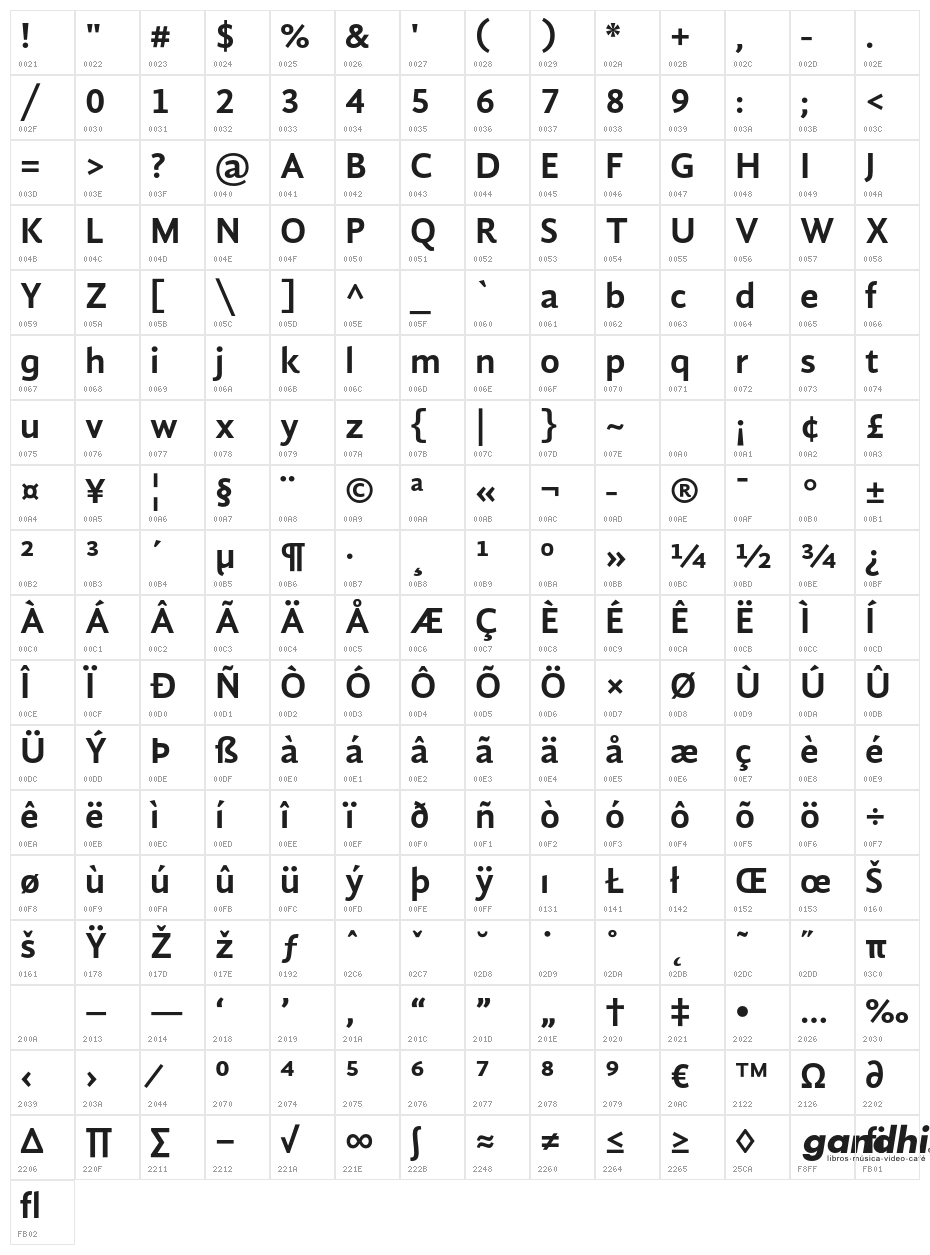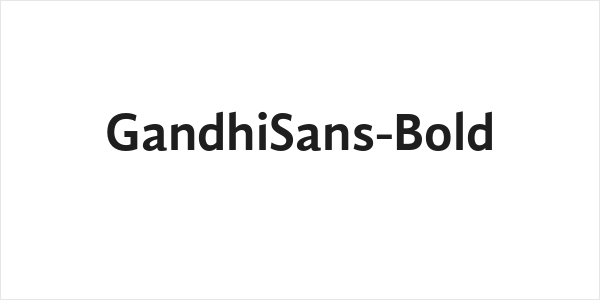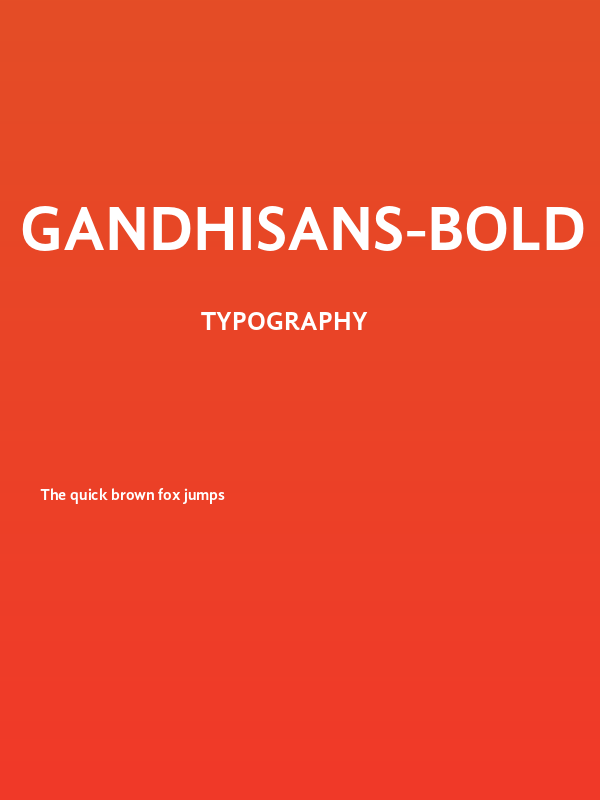
GandhiSans-Bold Font
GandhiSans-Bold Description
This font features a clean and modern sans-serif design with bold, uniform strokes that provide a strong visual impact. The characters are well-proportioned, with a consistent weight that enhances readability. The uppercase letters are slightly taller than the lowercase, maintaining a balanced appearance. The numerals are clear and distinct, making them suitable for various applications. Special characters are designed with the same boldness, ensuring they stand out effectively. Overall, the font exudes a contemporary and professional feel, making it versatile for numerous design projects.